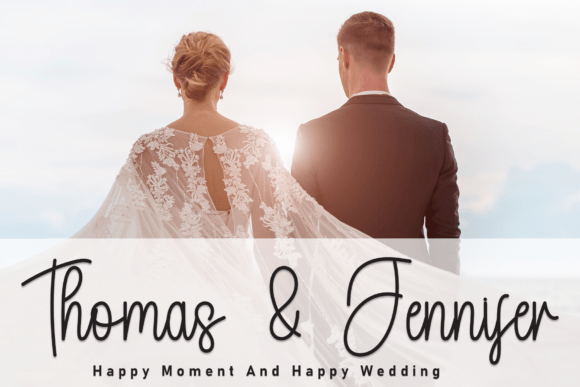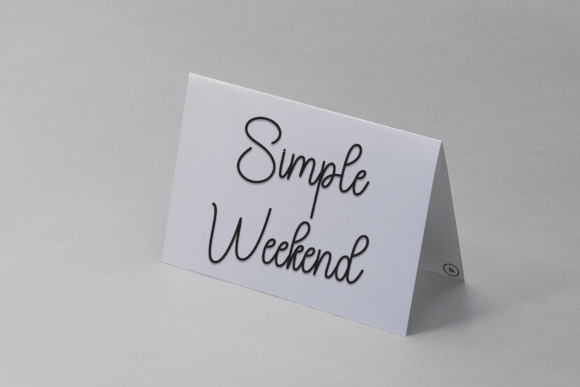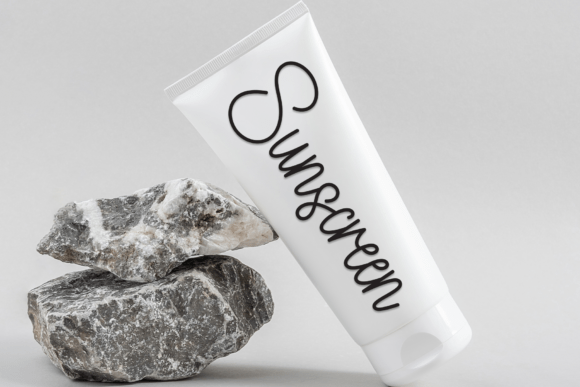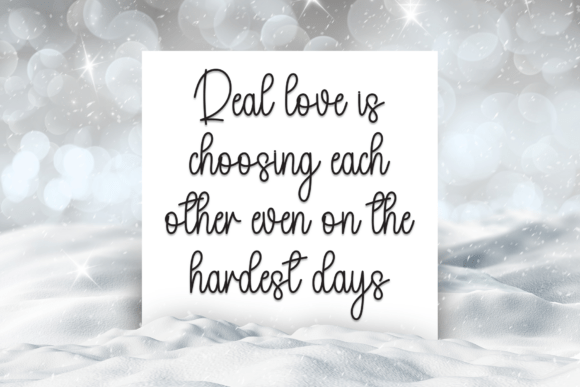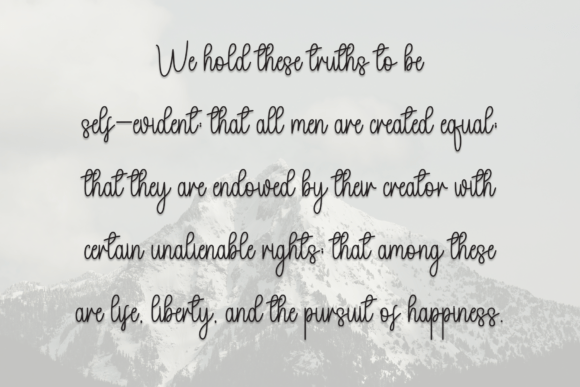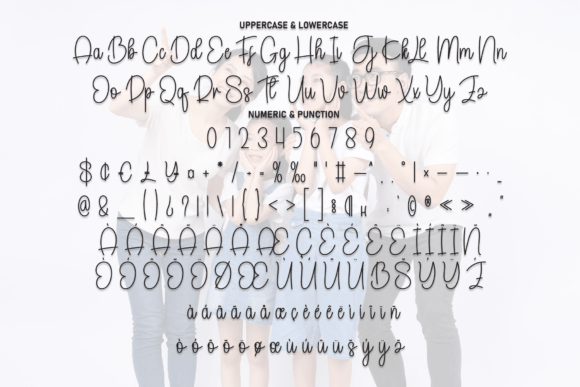
Introducing Family Font: The Perfect Handwritten Display Font for Your Designs
Are you tired of using the same old fonts in your designs? Do you want to add a touch of personality and whimsy to your projects? Look no further than Family Font, a genuinely delightful and affable handwritten display font that’s sure to bring your designs to life.
A Charming and Playful Vibe
Family Font is a one-of-a-kind font that’s bursting with charm and playfulness. Its unique, handwritten style is perfect for adding a touch of fun and enchantment to any design. Whether you’re creating wedding invitations, cards, or other projects, this font is sure to make them stand out from the crowd.
With its effortless, carefree vibe, Family Font is the perfect choice for designers and crafters who want to infuse their projects with a sense of joy and warmth. This font is all about spreading happiness and making your designs more engaging and memorable.
Breathe Life into Your Designs
Family Font is more than just a font – it’s a way to breathe life into your designs. Its authentic, handwritten style gives your projects a personal touch that’s hard to replicate with generic fonts. Whether you’re designing for print or digital media, this font is sure to add a touch of magic to your work.
With Family Font, you can create designs that are truly unique and eye-catching. Its playful, cursive style is perfect for creating titles, headings, and other design elements that need to make a statement. And with its wide range of uses, you can use this font to create everything from wedding invitations to social media graphics.
One of the most popular uses for Family Font is in wedding invitations and cards. Its romantic, whimsical style is perfect for creating beautiful, one-of-a-kind wedding designs that will leave a lasting impression on your guests.
But Family Font isn’t just limited to wedding designs. It’s also perfect for creating birthday cards, holiday cards, and other types of greeting cards that need a personal touch. And with its versatility, you can use this font to create a wide range of designs, from formal to informal.
Easy to Use and Customize
Why Choose Family Font?
So why choose Family Font over other fonts? Here are just a few reasons why this font stands out from the crowd:
- Unique and Authentic Style: Family Font has a truly unique and authentic style that’s hard to replicate with other fonts.
- Playful and Whimsical: This font has a playful and whimsical vibe that’s perfect for adding a touch of fun and enchantment to your designs.
- Easy to Use and Customize: Family Font is easy to use and customize, making it perfect for designers and crafters of all skill levels.
- Wide Range of Uses: This font is perfect for creating a wide range of designs, from wedding invitations to social media graphics.
In conclusion, Family Font is a genuinely delightful and affable handwritten display font that’s perfect for adding a touch of fun and enchantment to your designs. With its unique and authentic style, playful and whimsical vibe, and ease of use, this font is sure to become a favorite among designers and crafters.